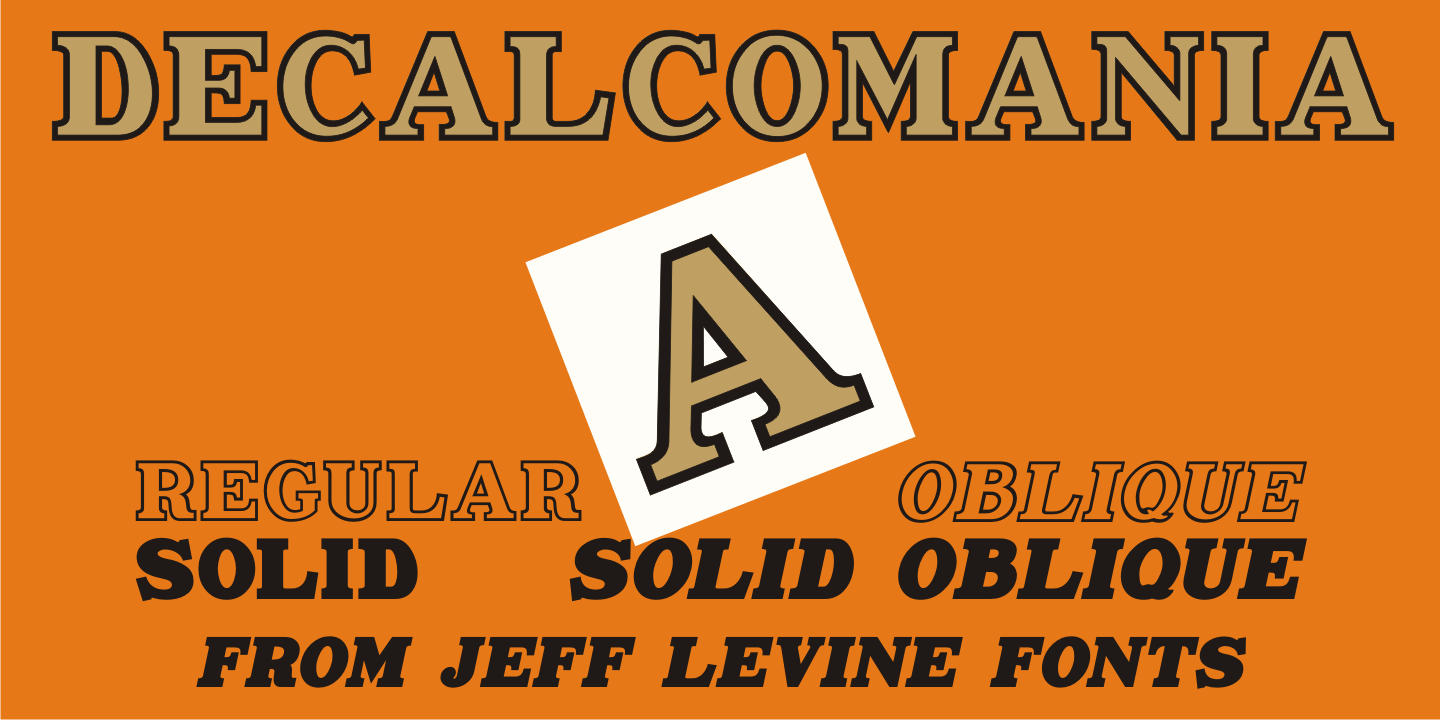
Decalcomania
Decalcomania JNL is based on examples of gold and black water-applied initial decals made by the Transfer Monogram Company of Chicago circa the 1940s.
It is presumed the patterns for the letters were hand cut, possibly explaining the variations in line widths and character shapes. These eccentricities were left intact and followed through to the other characters in order to represent a more 'authentic' digital version of these vintage decals.
Decalcomania JNL is available in both the regular (outline) version, and a solid black version, as well as obliques of both styles.